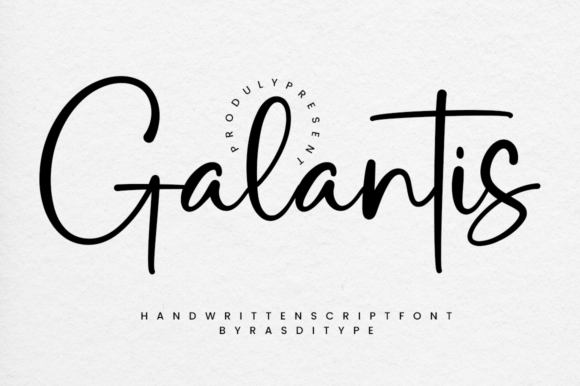
Introducing Galantis Font, the perfect script font for those seeking a touch of elegance and sophistication. Created by the talented team at RasdiType, Galantis Font is designed to add a beautiful and refreshing look to your designs, making it ideal for a wide range of applications.
Whether you're creating a stunning email signature or designing a beautiful logo, Galantis Font is the perfect choice. This delicate script font exudes class and refinement, making it an excellent choice for anyone who wants to add a touch of sophistication to their work.
With Galantis Font, you'll enjoy a wide range of features and benefits. For starters, this font is incredibly versatile, making it suitable for a wide range of design projects. Whether you're creating a beautiful invitation or designing a stunning website, Galantis Font is the perfect choice.
But that's not all. Galantis Font is also incredibly easy to use, with a simple and intuitive design that makes it easy to customize and adjust to your needs. Whether you're a seasoned designer or just starting, you'll love how easy it is to work with this font.
So why wait? If you're looking for a beautiful and refreshing script font that exudes elegance and class, Galantis Font is the perfect choice. With its delicate and sophisticated design, this font is sure to elevate your work to new heights.